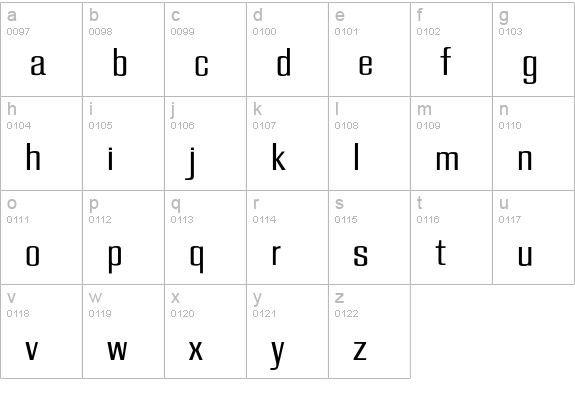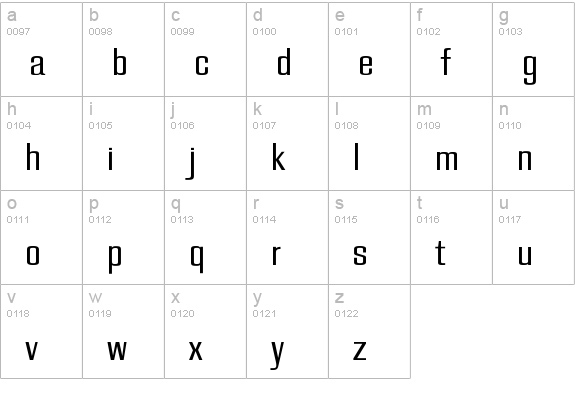
CaliforniaGrotesk-Regular Font Details
CaliforniaGrotesk-Regular is the standard, neutral variant in the CaliforniaGrotesk typeface family \xE2\x80\x94 well suited to general body text, paragraphs, and standard typographic work.
CaliforniaGrotesk-Regular is a versatile and modern sans-serif font that perfectly balances functionality with style. With its clean lines and geometric shapes, this font is ideal for a wide range of design projects, from branding to editorial design. The aesthetic appeal of CaliforniaGrotesk-Regular lies in its simplicity and readability, making it a great choice for both print and digital media. What sets CaliforniaGrotesk-Regular apart is that it is available for free download at FontsMarket.com. This means that designers and creatives can easily access and use this high-quality font without any cost barriers. Whether you're working on a personal project or a commercial endeavor, CaliforniaGrotesk-Regular offers a professional and polished look that will elevate your designs to the next level. Download this font today and discover the endless possibilities it has to offer.